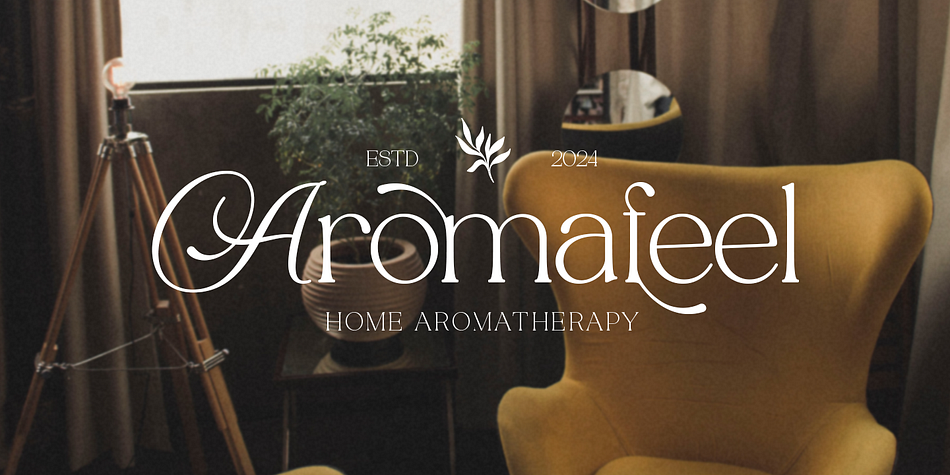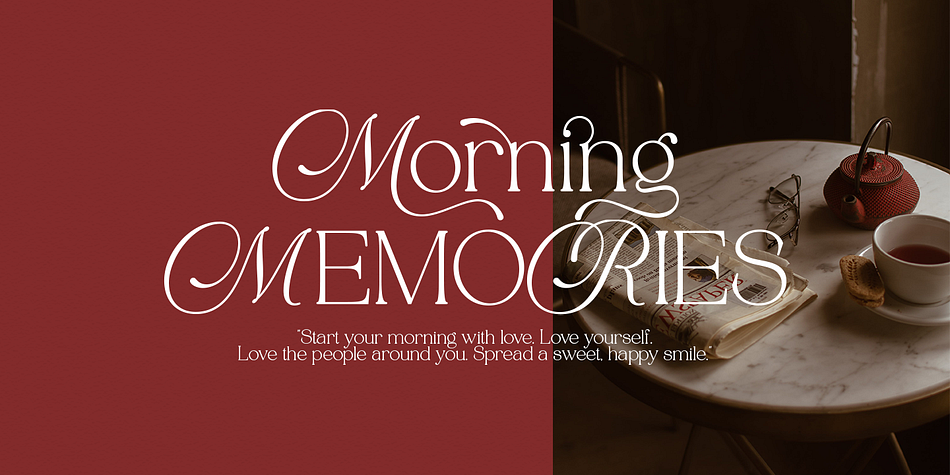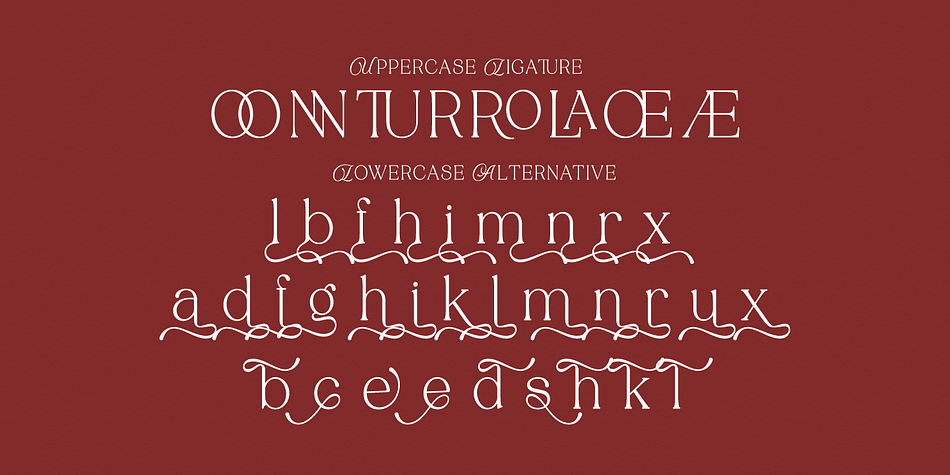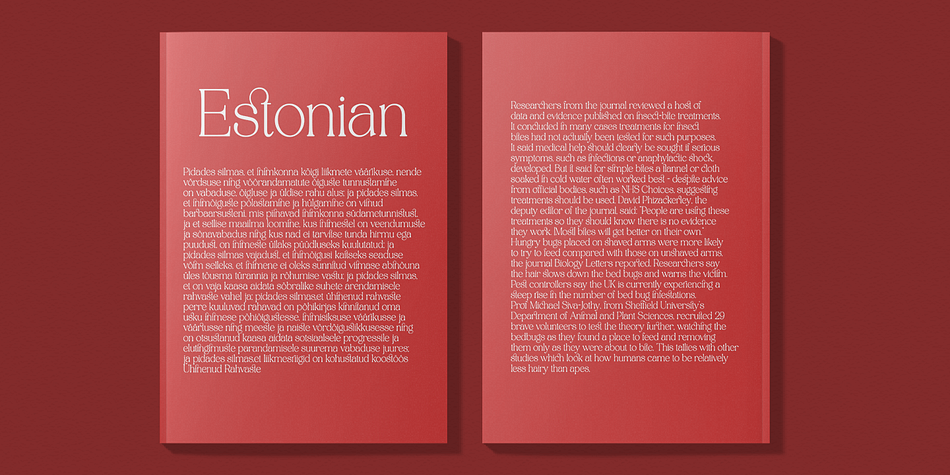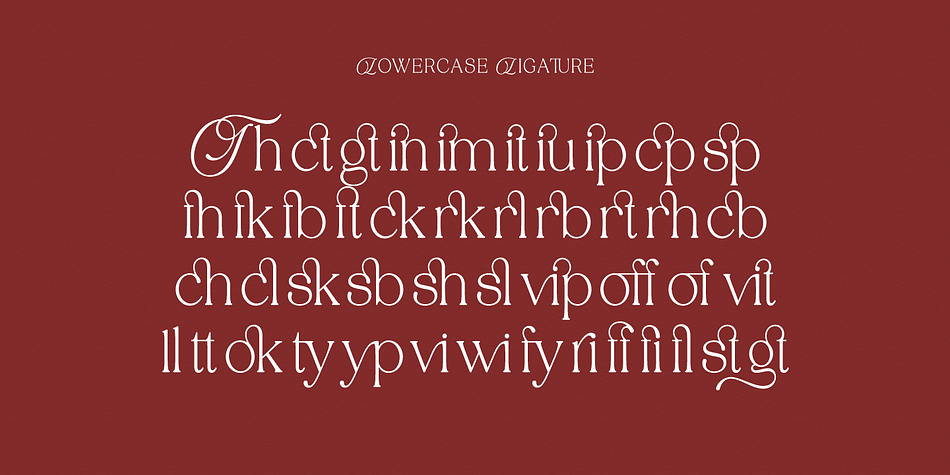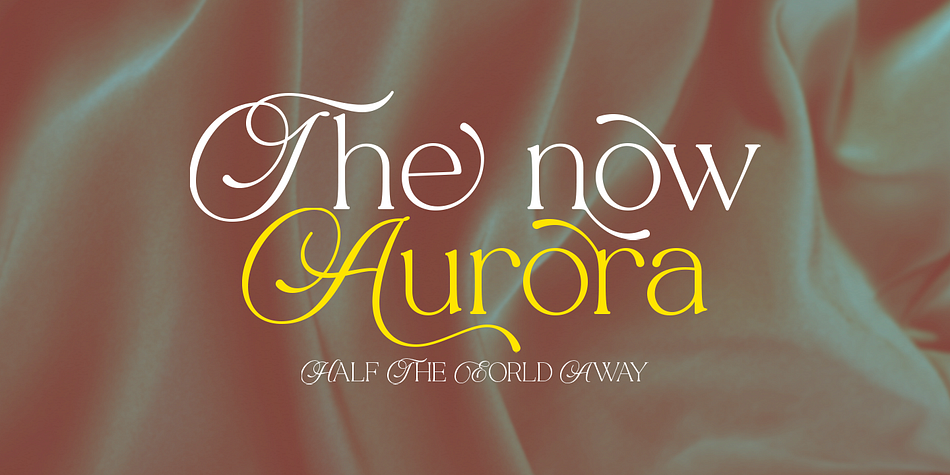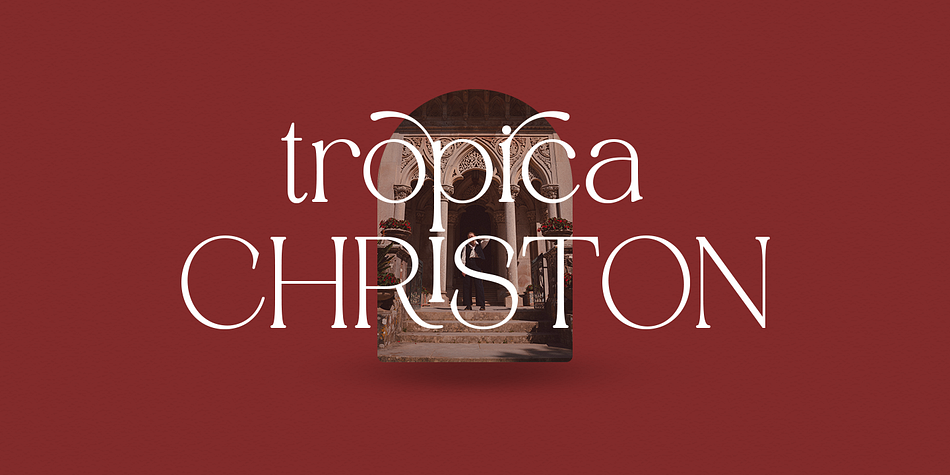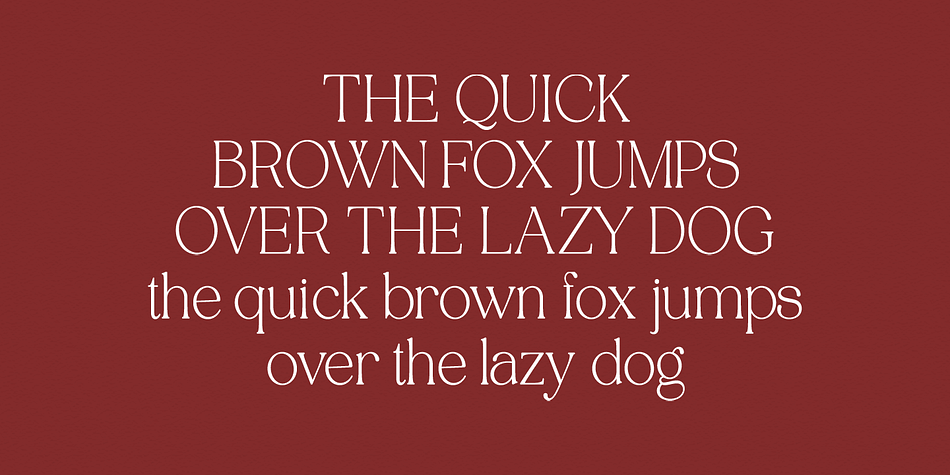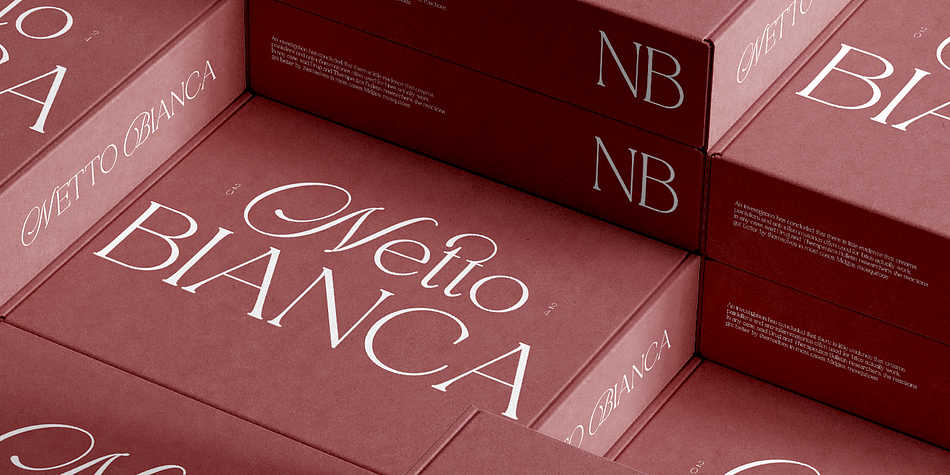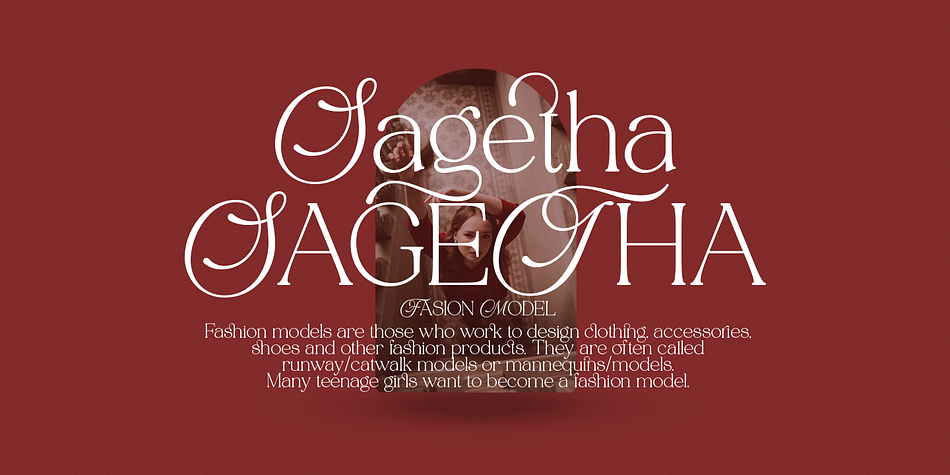
Tenopate
Tenopate is a display serif font family. This typeface has two styles and was published by Pista Mova.
Tenopate is a beautiful and uniquely inspiring blend of classic calligraphy and modern serifs. comes with 2 versions regular & italic.
Tenopate is created primarily for headlines, headlines and other short texts and is perfect for advertising, vintage mood boards, branding, logotypes, packaging, titles, editorial designs, modern logos, websites, social media quotes, wedding branding, modern and design antique.